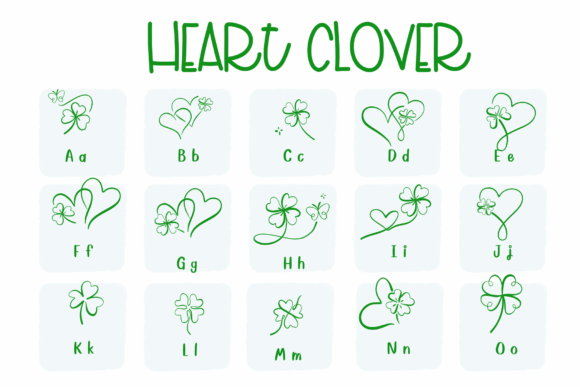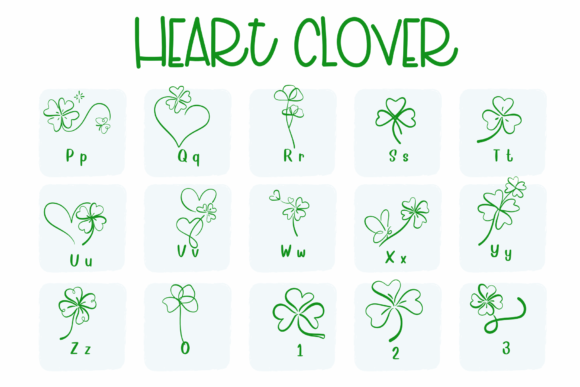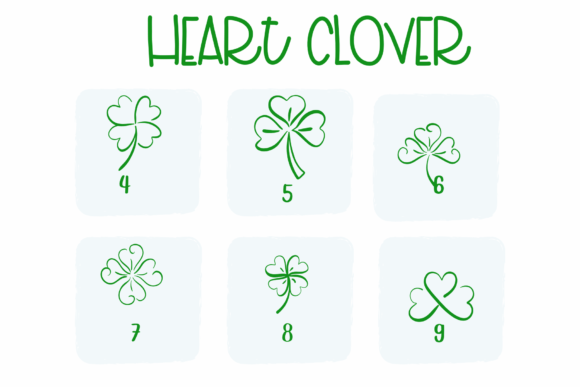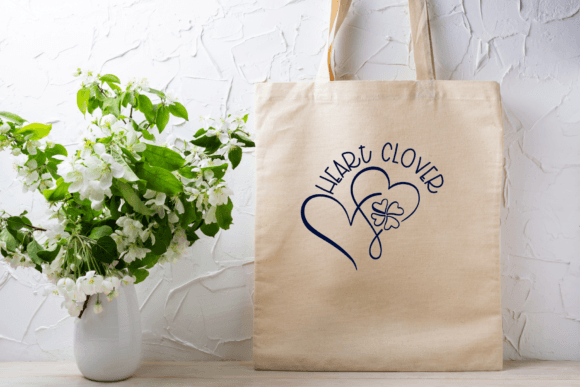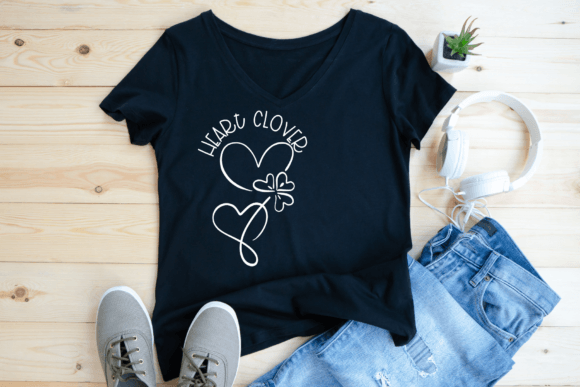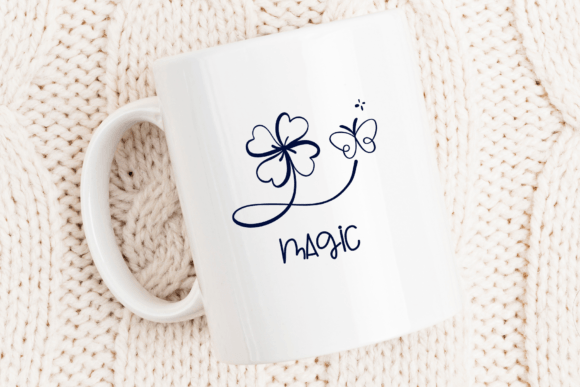
Introduction to Heart Clover Font
Heart Clover is a dingbat font with a clover theme in a sketch style.
This font can enhance your creative projects such as wedding invitations, DIY, crafts, decorations, logos, and many other creative ideas .
Key Features of Heart Clover Font